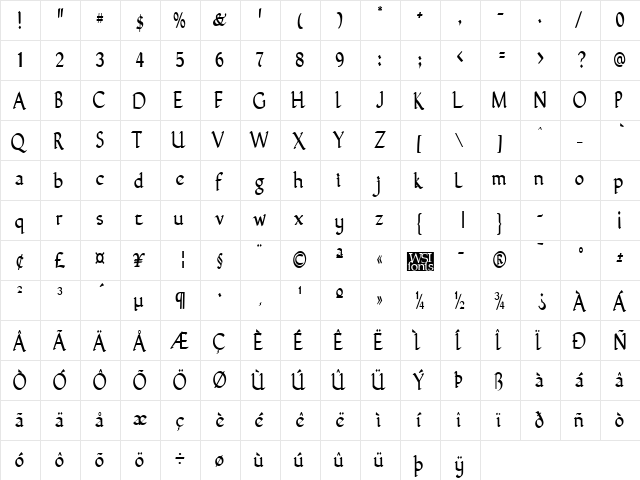
GuntherNarrow Regular
Design Context for GuntherNarrow Typeface
GuntherNarrow offers clean, dependable letterforms without strong stylistic allegiance, making it a practical choice for designers who need flexibility. Its narrow stance lets it pack a punch even in space-constrained designs.